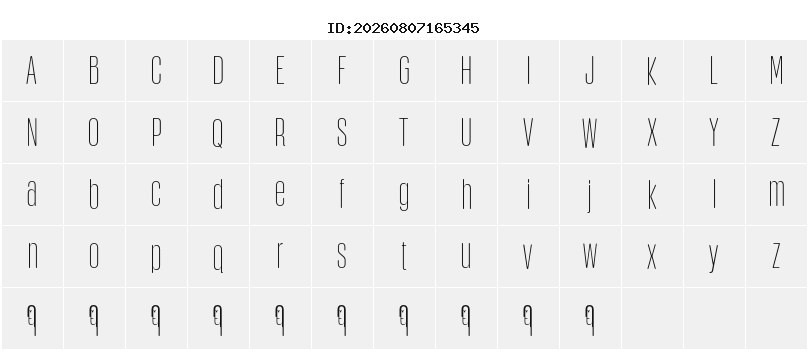
Obcecada Sans Preview
• Font Name: Obcecada Sans
• Designer: Fernando Haro
• Manufacturer: deFharo
About Obcecada Sans.otf
Obcecada Sans.otf is a modern, elegant sans-serif font designed for ultimate readability and visual harmony. Perfect for branding, headlines, web design, and print materials.